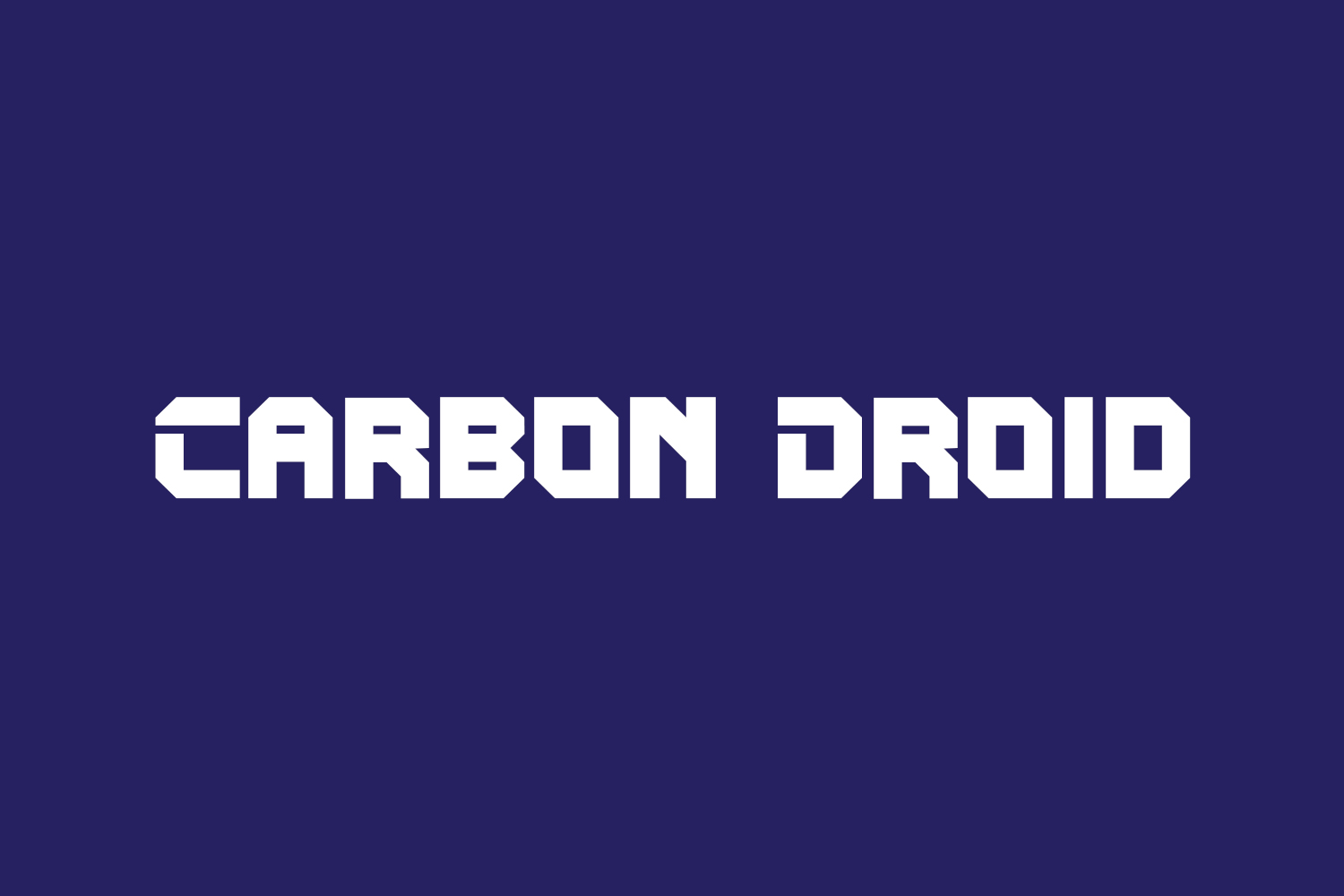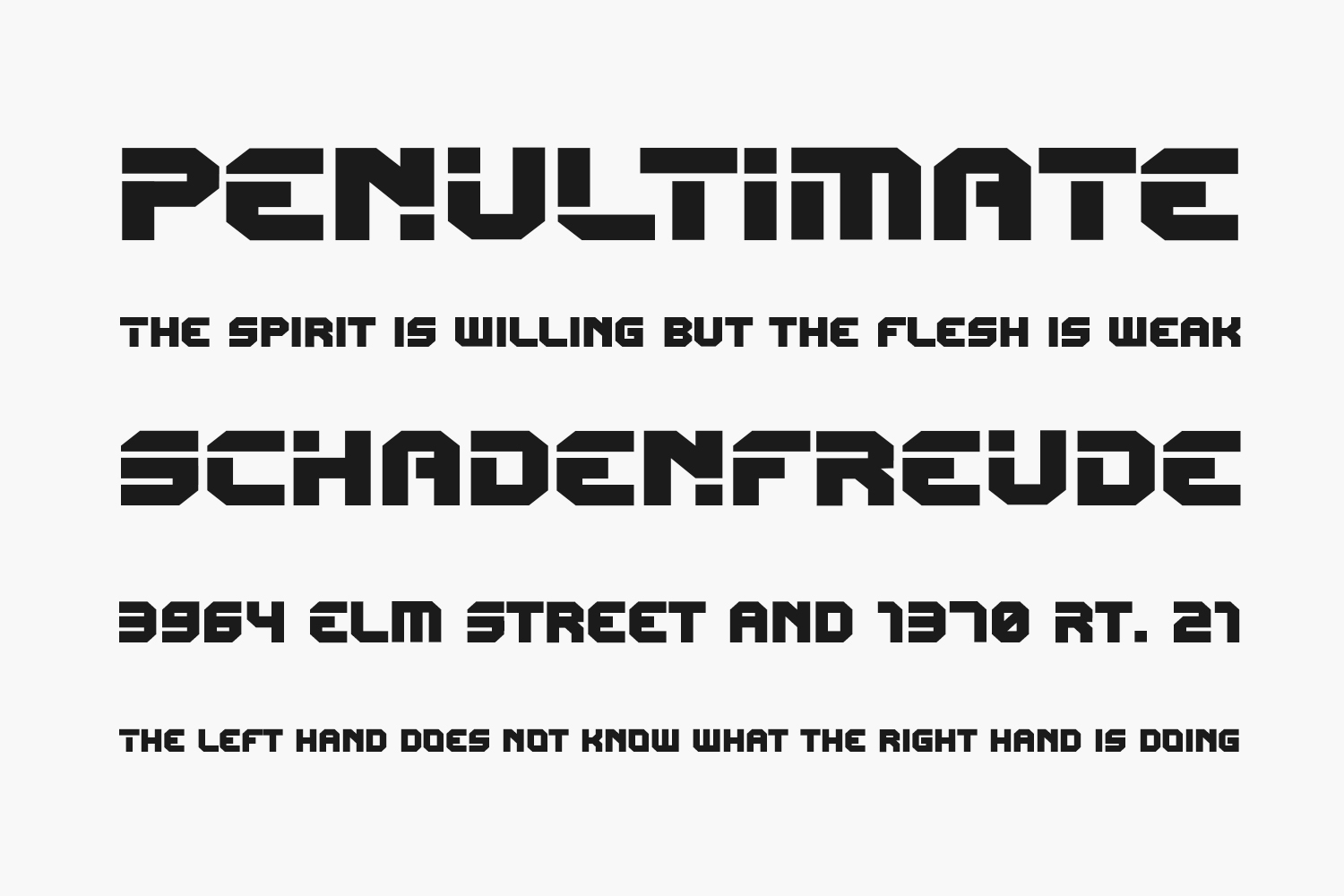
Carbon Droid Free Font is a bold, robotic display font. No matter the topic, this font will be an incredible asset to your fonts’ library, as it has the potential to elevate any creation. Carbon Droid Free Font was designed by Tokopress and is free for personal use only. Please purchase the full version for commercial use.